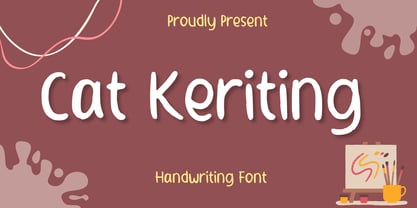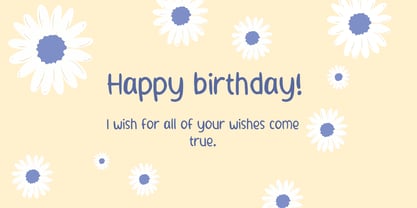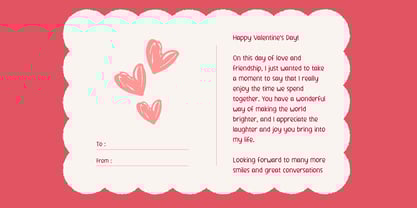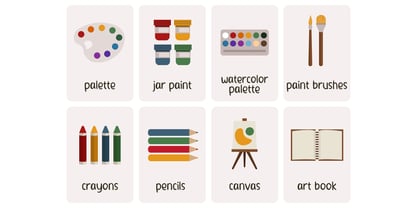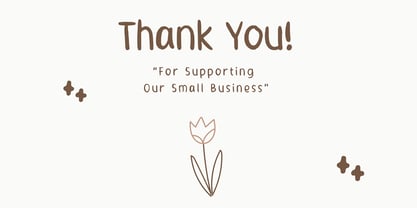
Cat Keriting
by Aisyah
The Cat Keriting Font Family was designed by Nur Aiysah Amalia and published by Aisyah. Cat Keriting contains 1 styles. More about this family
Welcome to Cat Keriting, a handwriting-inspired font with an irresistible charm. Modeled after creative scribbles on a chalkboard, it exudes a cute, natural essence that breathes life into any design. It is perfect for innovative projects, personal branding, or any business pursuit that needs a dash of artistic whimsy. Its distinct appeal brings a personalized touch, elevating your creativity to new heights. Experience the unique allure of Cat Keriting, your ideal companion for creative expression.
Designers: Nur Aiysah Amalia
Foundry: Aisyah